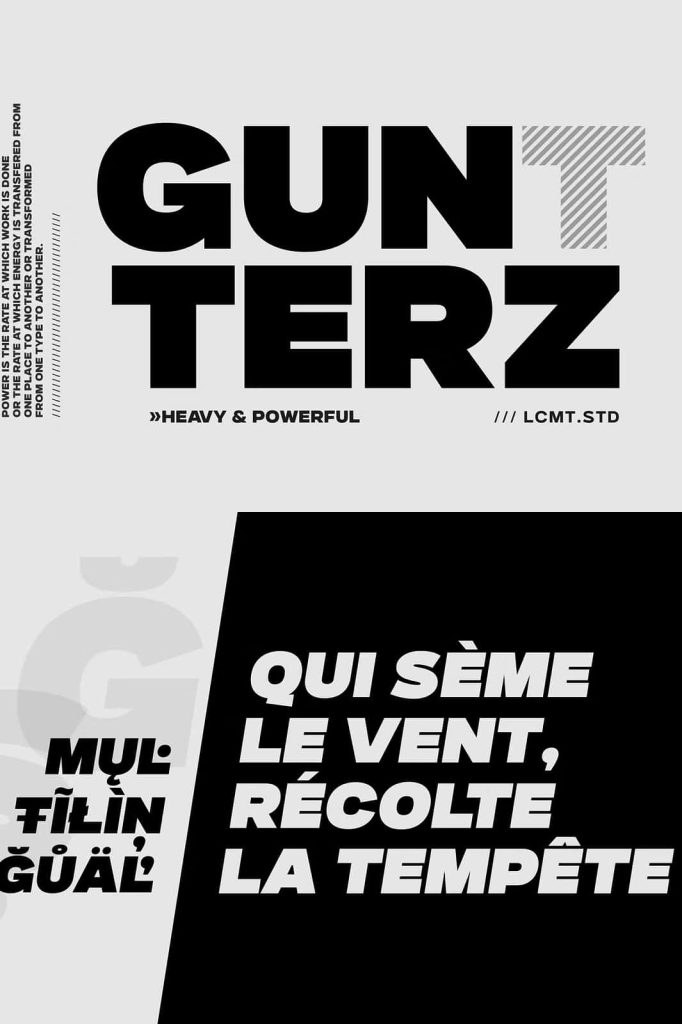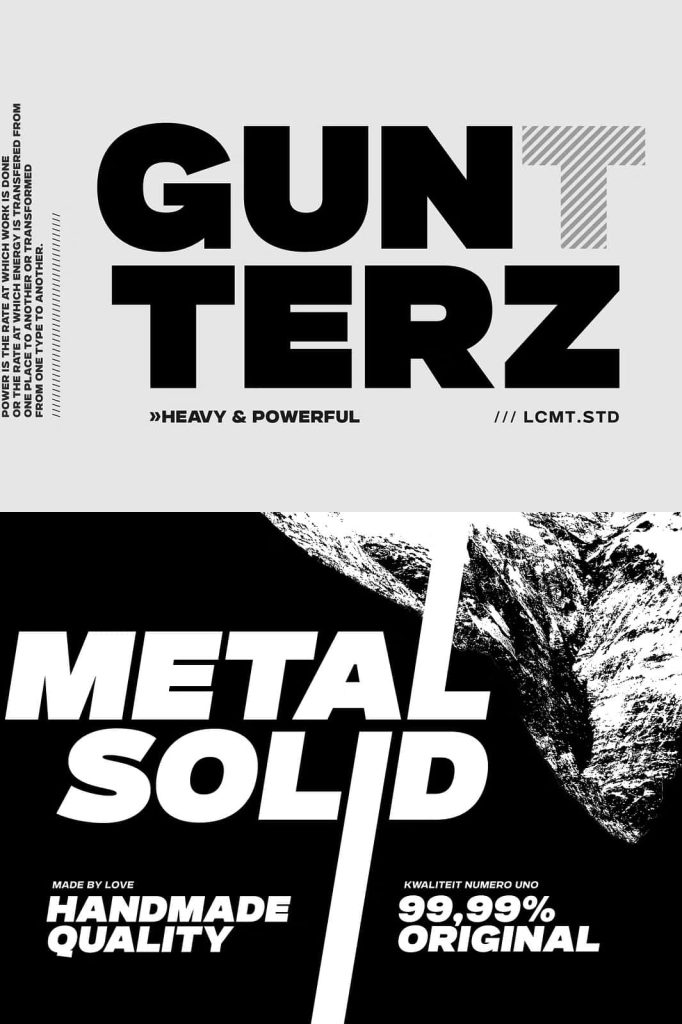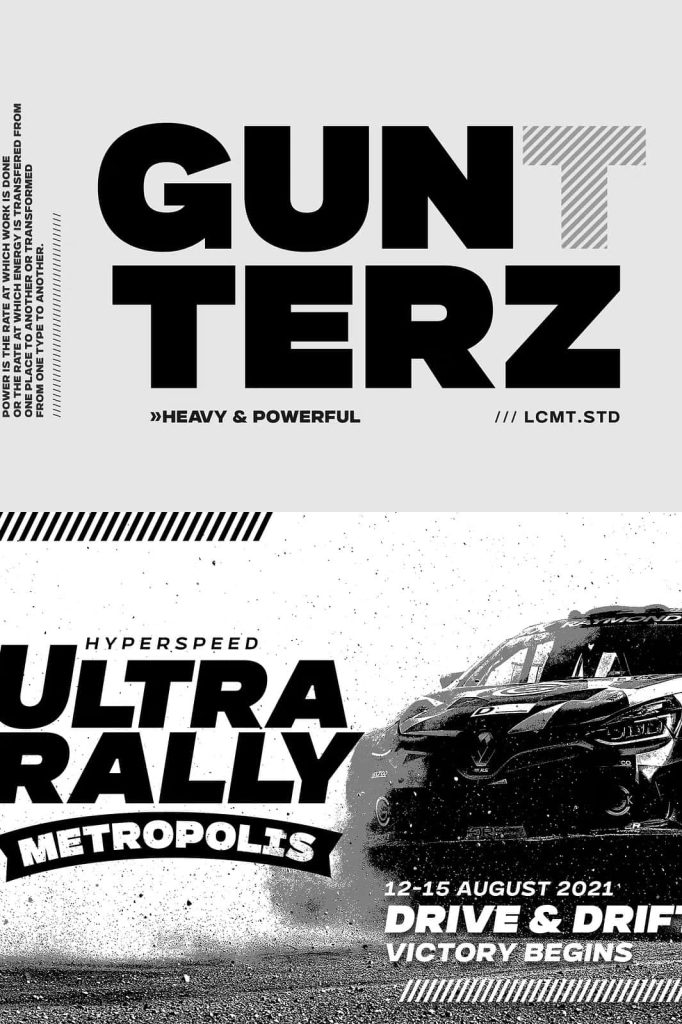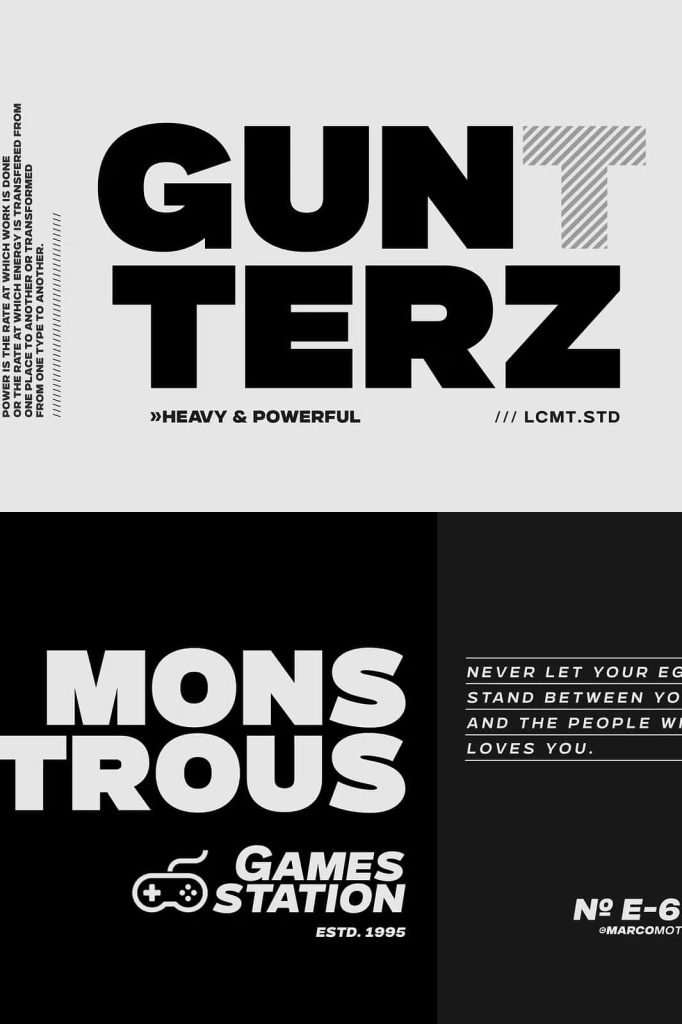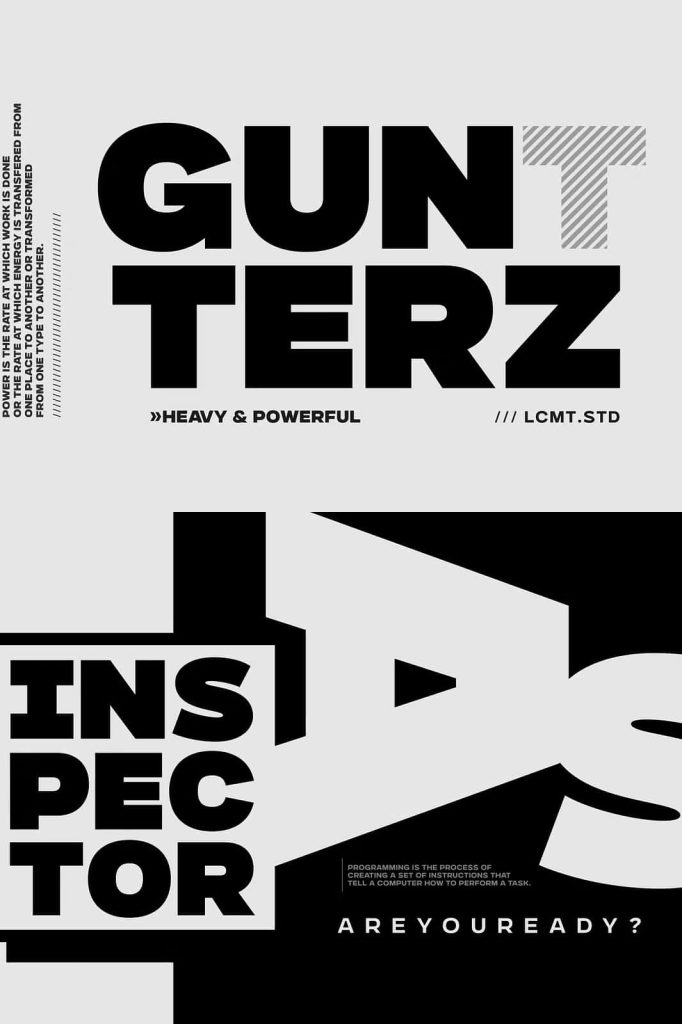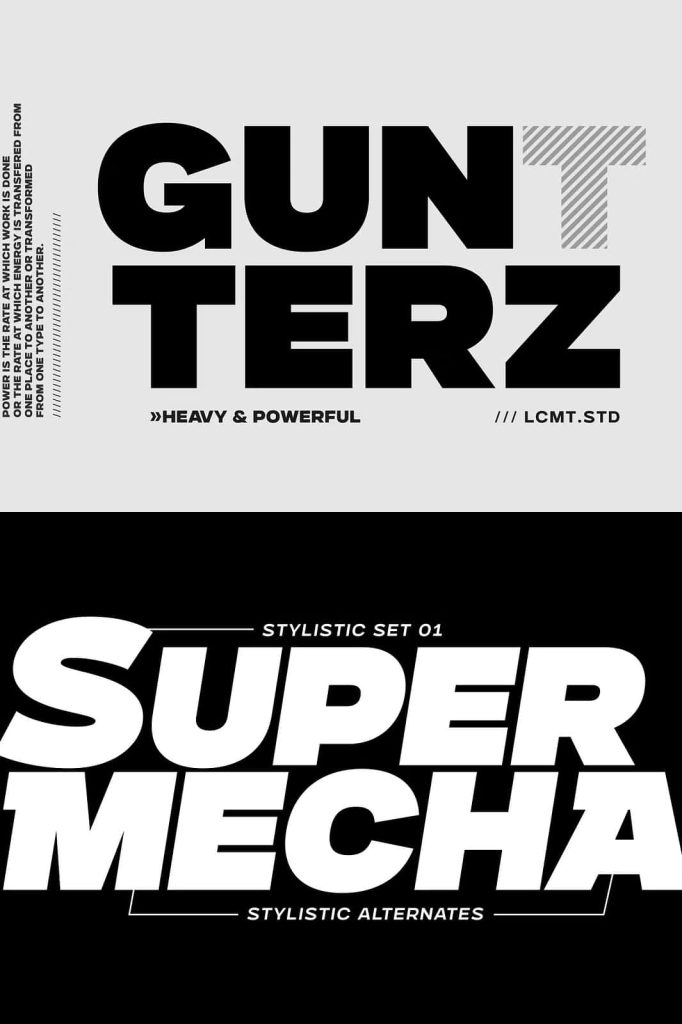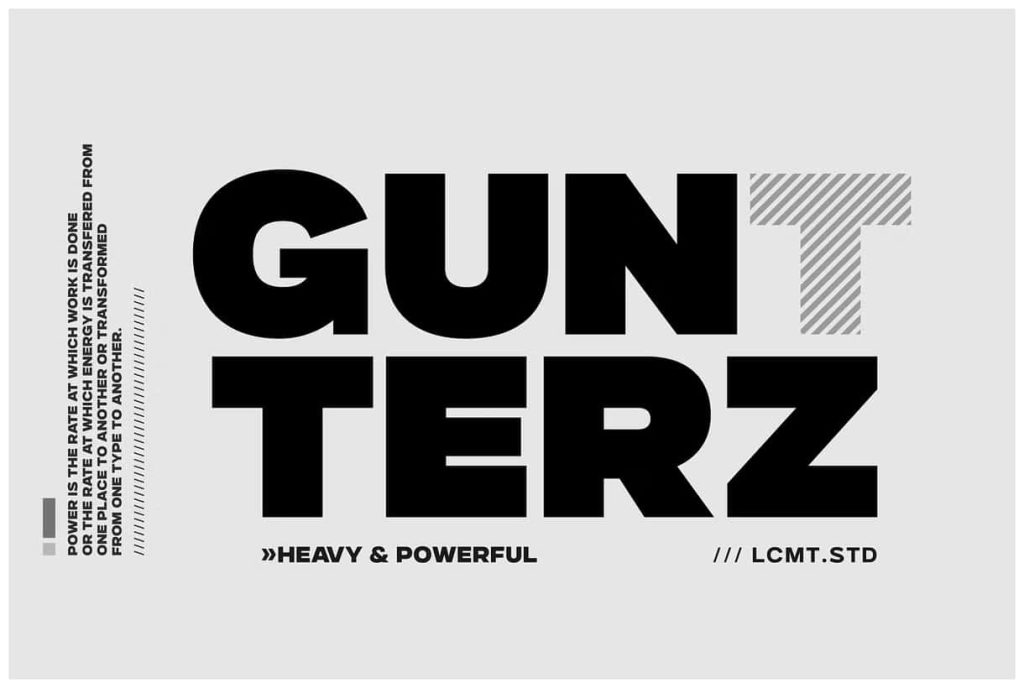
Gunterz Font: A Bold and Modern Typeface for Powerful Visual Impact
Gunterz is a modern and strong display font crafted to elevate design projects that demand attention and confidence. Its bold structure, impactful letterforms, and futuristic essence make it a powerful typeface for designers who want to communicate strength, clarity, and innovation. Because of its versatile nature, Gunterz integrates seamlessly into contemporary layouts, sharp visual compositions, and creative branding systems. Whether you want to design an eye-catching poster, produce a cinematic movie title, or build a dynamic sports campaign, this typeface ensures that your message stands out with authority.
Experience a Typeface Built for Bold Visual Statements
The Gunterz font was thoughtfully designed to support projects that require a modern and energetic appearance. Every curve, angle, and line was shaped to maximize readability while maintaining a strong personality. Its futuristic impression allows you to communicate forward-thinking concepts, technological advancements, and innovative ideas. Because of this, Gunterz becomes an excellent choice for industries that want to convey modernity, such as entertainment, sports, technology, digital media, and advertising.
Designers appreciate Gunterz for its ability to create dynamic and professional layouts without overwhelming the viewer. The font includes balanced proportions and clean structures that help maintain visual harmony, even in large-scale or high-impact designs. It stands out on both digital and print media, making it suitable for campaigns, product launches, special events, and promotional activities.
Ideal Uses of the Gunterz Font in Modern Design
Gunterz performs exceptionally well in projects that prioritize boldness, clarity, and modern aesthetics. Its design strength makes it appropriate for wide-ranging applications such as:
Poster Titles and Promotional Materials
Use Gunterz to produce strong and commanding poster titles. Its bold style immediately captures attention, making it perfect for promotional materials, public announcements, event graphics, and themed posters. The typeface enhances the overall composition while guiding the viewer toward the main message.
Product Packaging and Branding Design
If you want your product packaging to appear professional, modern, and visually engaging, Gunterz supports clean and impactful branding. It gives packaging designs a contemporary appearance that resonates with modern consumers who appreciate strong visual identity and clear typography.
Logotypes and Headline Designs
Gunterz works extremely well in logo design and headline creation because of its sharp and confident structure. Its unique appearance makes brand names memorable and highly recognizable. Designers often use it to express authority, reliability, and future-focused values.
Motion Graphics and Cinematic Titles
Motion graphics benefit greatly from Gunterz’s dynamic aesthetic. Whether you are creating intros, trailers, or typographic animations, this font brings a cinematic quality that enhances storytelling and visual rhythm. Movie titles look strong and dramatic, ensuring viewers feel the intensity and style of the production.
Sports Promotion and Future Technology Concepts
Gunterz is also a favorite in sports-oriented projects. Its bold and energetic structure integrates well with athletic branding, event promotions, and sports merchandise. In addition, its futuristic look makes it suitable for tech branding, AI concepts, digital products, and other forward-thinking design projects.
Bring Power and Modern Energy to Your Designs
Gunterz is more than just a display font. It is a tool that allows designers to express confidence, strength, and innovation through typography. Its versatility ensures that it remains relevant across industries and project types. Whether you aim to create a dynamic logo, a bold poster, or a futuristic motion graphic, Gunterz equips your design with the visual impact it needs.
Choose Gunterz to bring clarity, strength, and modern aesthetic appeal to every creative project you design.